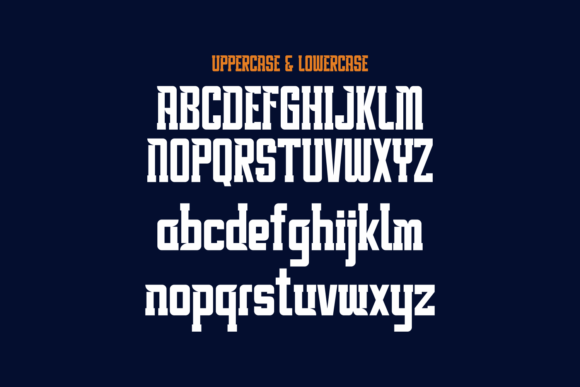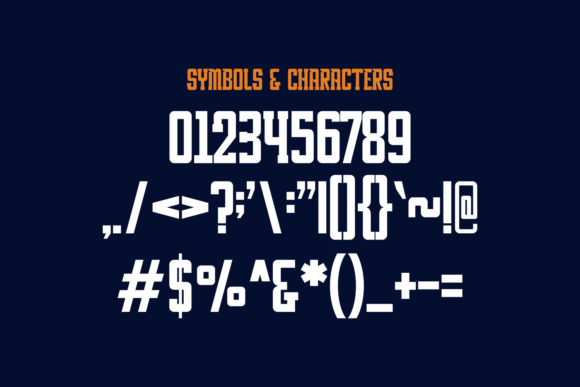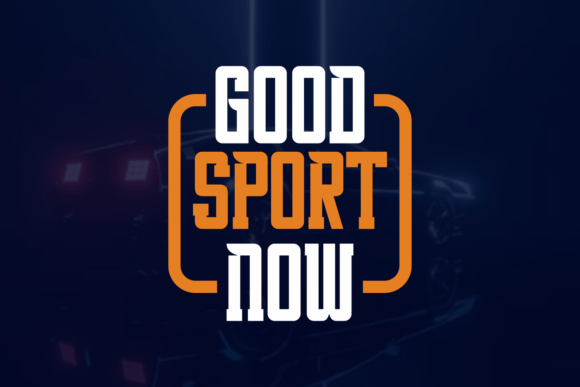
Introducing Bruder Font: The Ultimate Design Companion for Print and Screen
In the world of design, typography plays a crucial role in conveying messages, expressing creativity, and building brand identities. With countless font options available, finding the perfect one for your project can be overwhelming. However, if you’re looking for a versatile and visually stunning font, look no further than Bruder Font. In this article, we’ll explore the features, benefits, and uses of Bruder Font, and why it’s perfectly suited for both print and screen applications.
What is Bruder Font?
Bruder Font is a modern, high-quality font designed to meet the needs of designers, crafters, and artists. Its clean lines, elegant curves, and precise craftsmanship make it an excellent choice for a wide range of projects, from branding and advertising to digital media and large-scale artwork.
Key Features of Bruder Font
• Character Set: The font includes uppercase and lowercase letters, numbers, and punctuation marks, providing everything you need to create professional-looking text.
Perfectly Suited for Print and Screen
Bruder Font’s versatility is one of its standout features. Its design ensures that it looks great both in print and on screen, making it an excellent choice for:
• Branding: Create a lasting impression with a custom logo or business card that showcases your brand’s personality.
• Name Cards: Make a professional statement with beautifully designed name cards that feature Bruder Font.
• Posters: Grab attention with eye-catching posters that utilize the font’s bold and elegant design.
• Logos: Design a memorable logo that stands out from the competition with Bruder Font’s unique character.
• Magazines and Covers: Elevate your publication’s design with a font that exudes sophistication and style.
• Banners: Create visually stunning banners that effectively communicate your message.
• T-Shirts: Design custom apparel that showcases your creativity and style with Bruder Font.
• Headers: Use Bruder Font to create striking headers that add visual interest to your designs.
• Large-Scale Artwork: Bruder Font’s precision and elegance make it perfect for large-scale artwork and installations.
Bruder Font offers several benefits for designers and crafters, including:
• Time-Saving: With its comprehensive character set and multi-format support, Bruder Font saves you time and effort in your design projects.
• Consistency: The font’s consistent design ensures that your brand’s message is conveyed clearly and professionally across various platforms.
• Creativity: Bruder Font’s unique character and versatility inspire creativity and experimentation in your design work.
In conclusion, Bruder Font is an exceptional design asset that offers versatility, elegance, and precision. Its suitability for both print and screen applications makes it an excellent choice for designers, crafters, and artists. With its comprehensive character set, multi-format support, and inspiring design, Bruder Font is sure to elevate your design projects and help you achieve your creative goals.